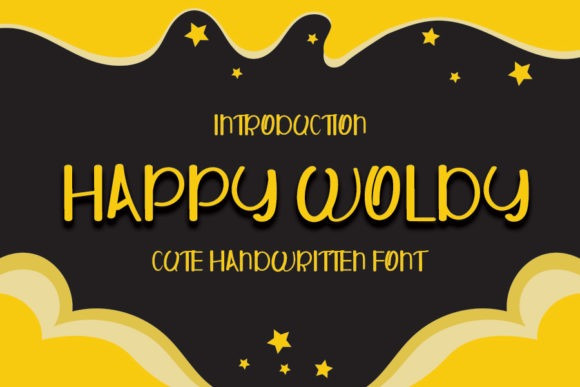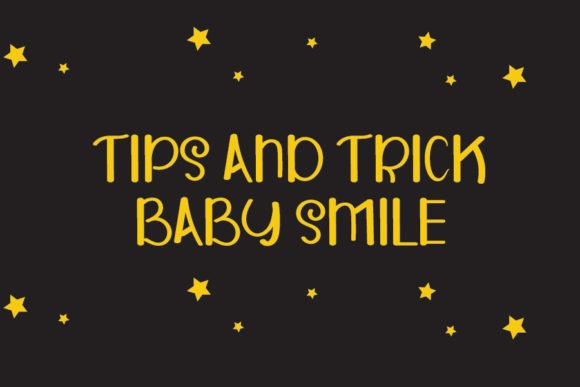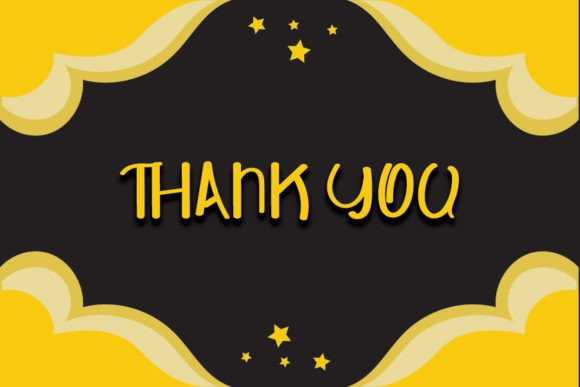
Happy Woldy Display Font
Happy Woldy is a simple and cute handwritten font. It features sweet and round letters and its versatility matches a wide variety of designs. Add it to your creative ideas and notice how it makes them come alive!